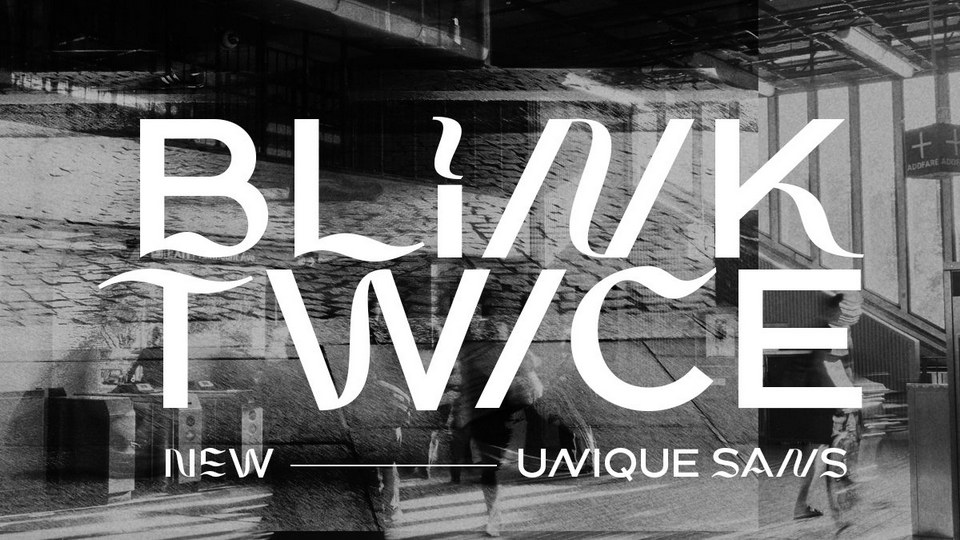
Feb 7, 2025DisplayBlink Twice Font Blink Twice is a modern and unique display font with a strong personality. It is perfect for the magazine, poster, and suitable for headline. Font DetailsDesigned by: Sarid EzraWebsiteLicense: Free for personal use Download Blink Twice FontFile size: 8.87 KBCreated: February 16, 2025Updated: February 16, 2025 Download Explore similar fonts Saneoz Font Modera Font Rama Font Garitz Font Kylora Font Hollowthorn Font # Contemporary# Creative# Unique More fonts by Sarid EzraBriberra FontAuckland ScriptArgue FontChequers FontDowney FontAdoria FontPoint Painter FontDesira Font